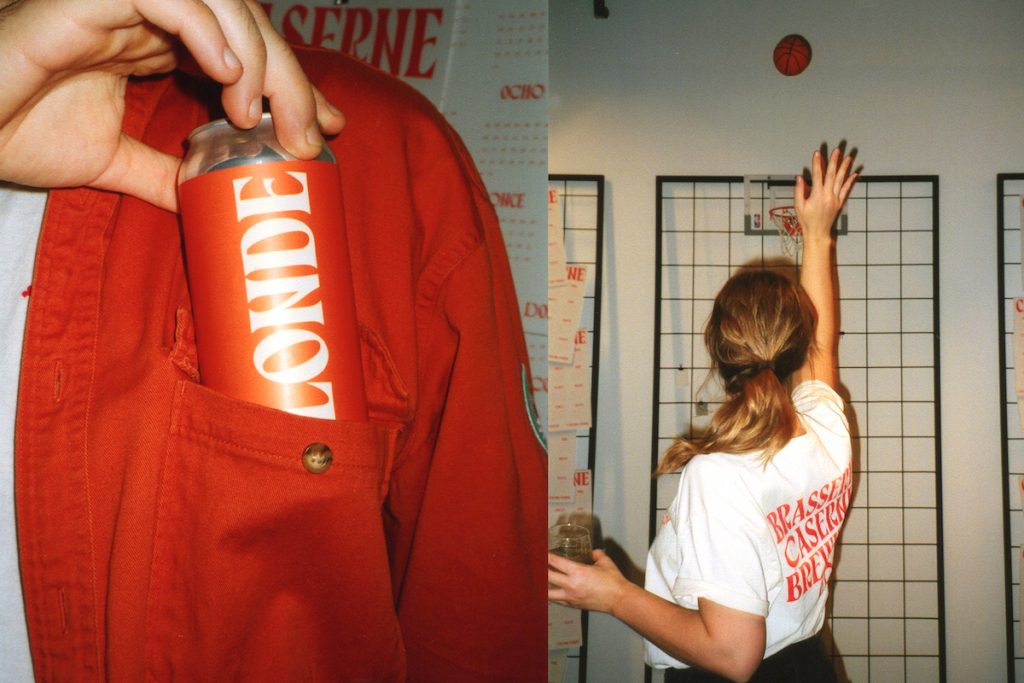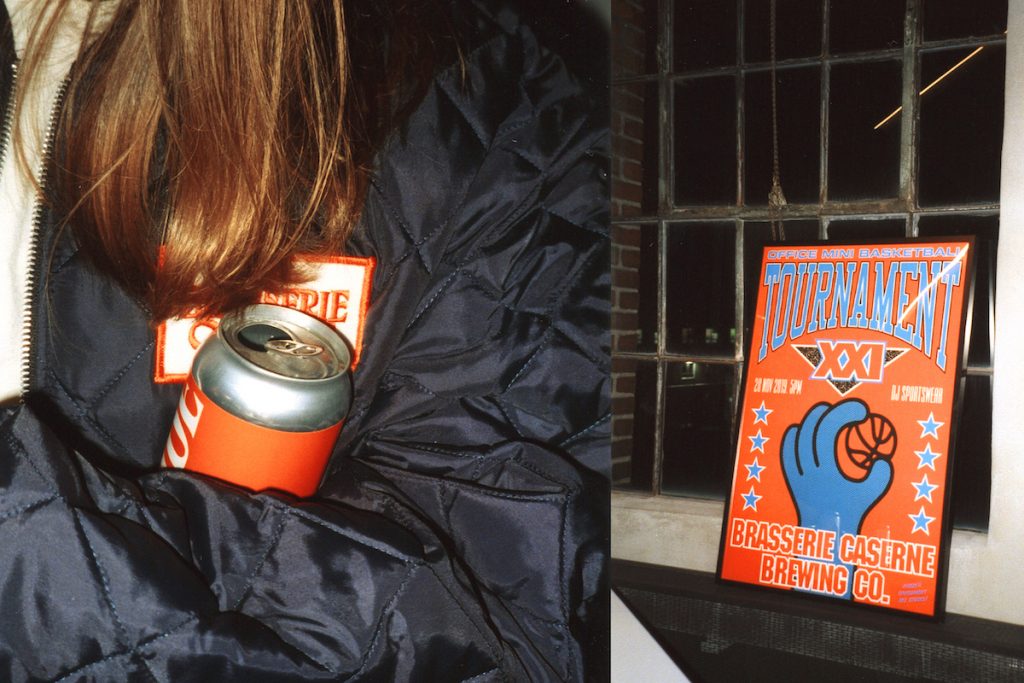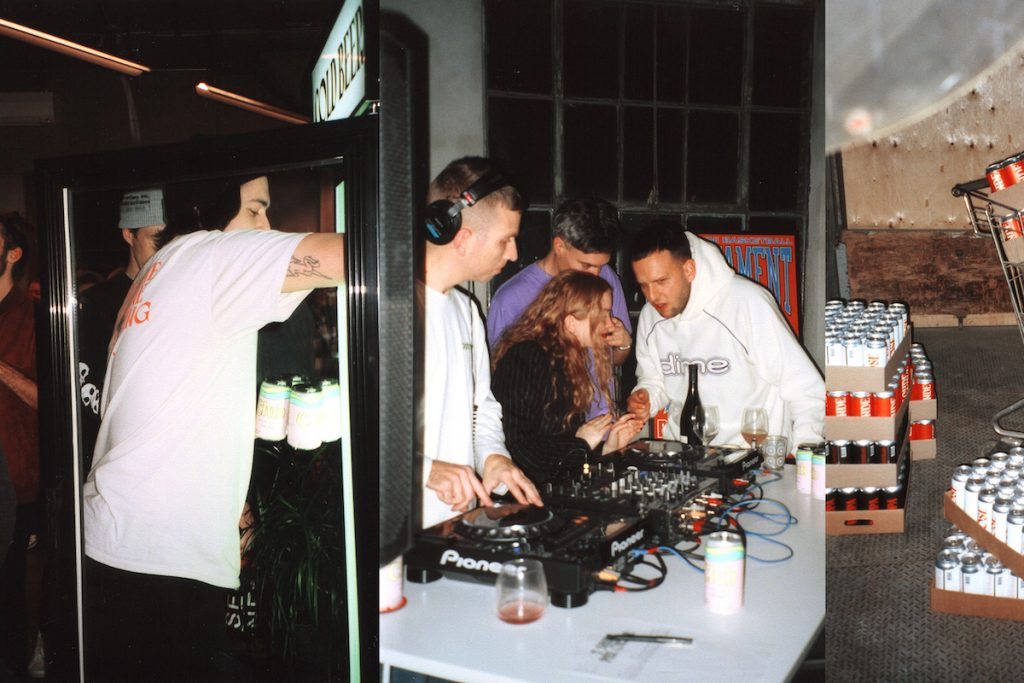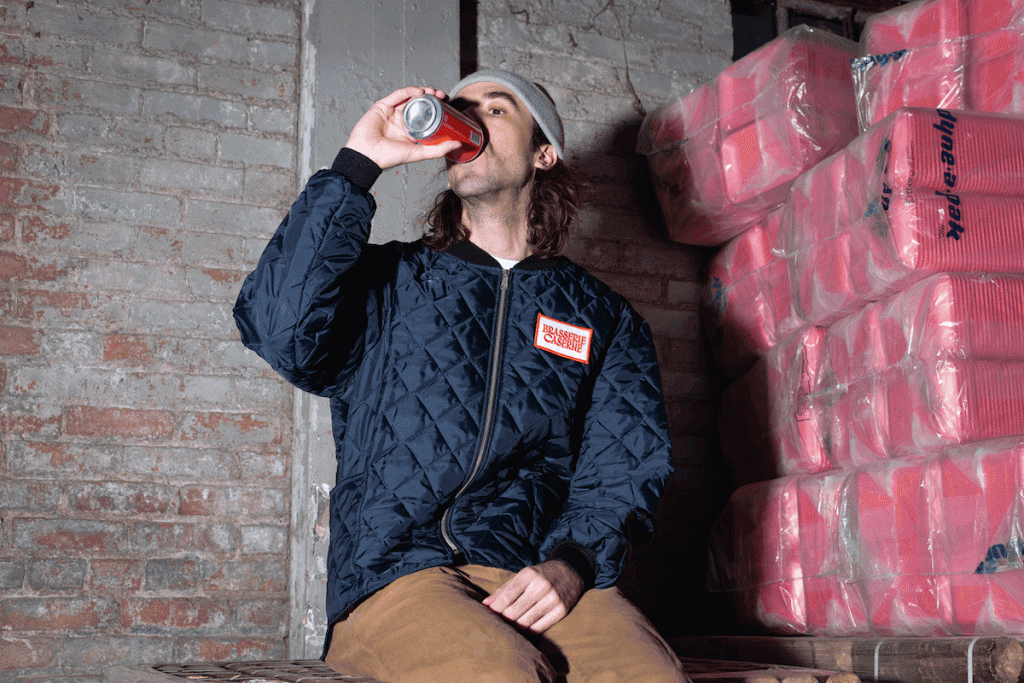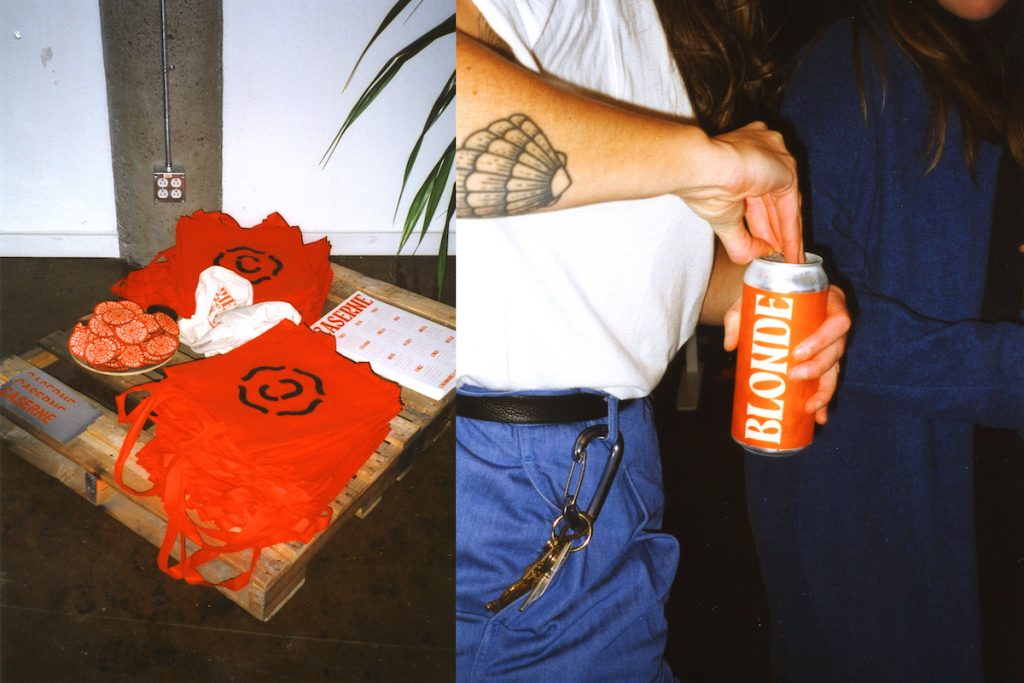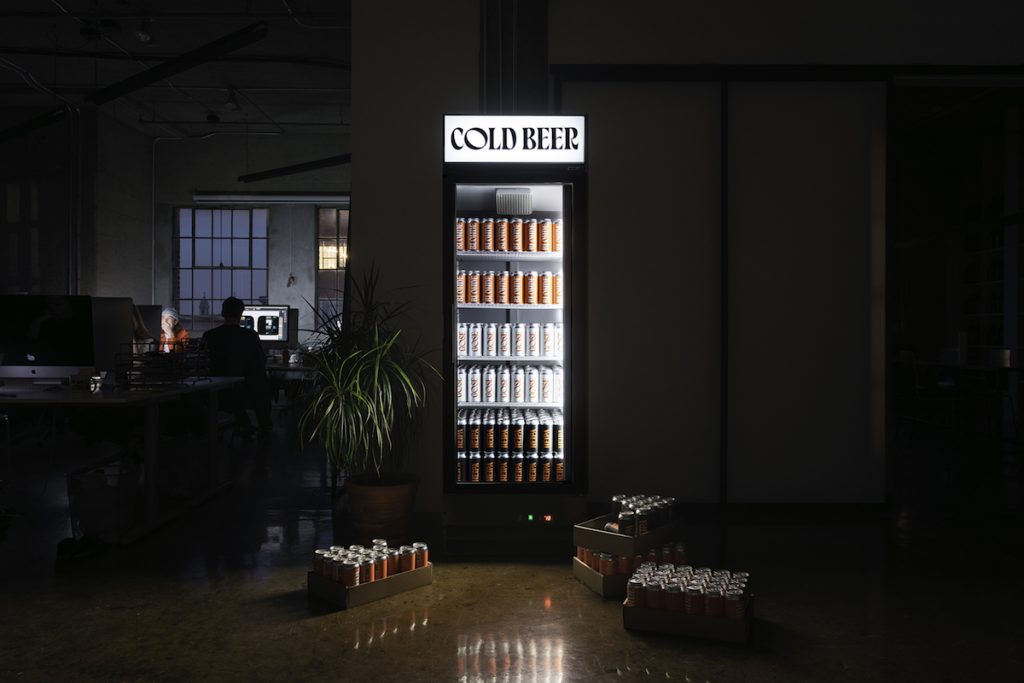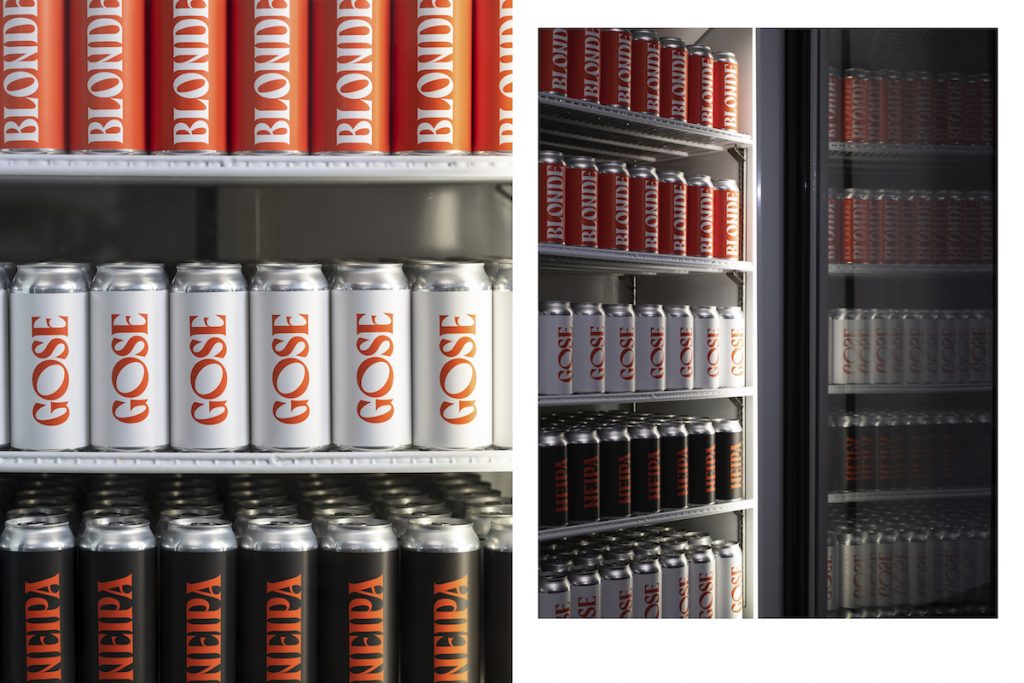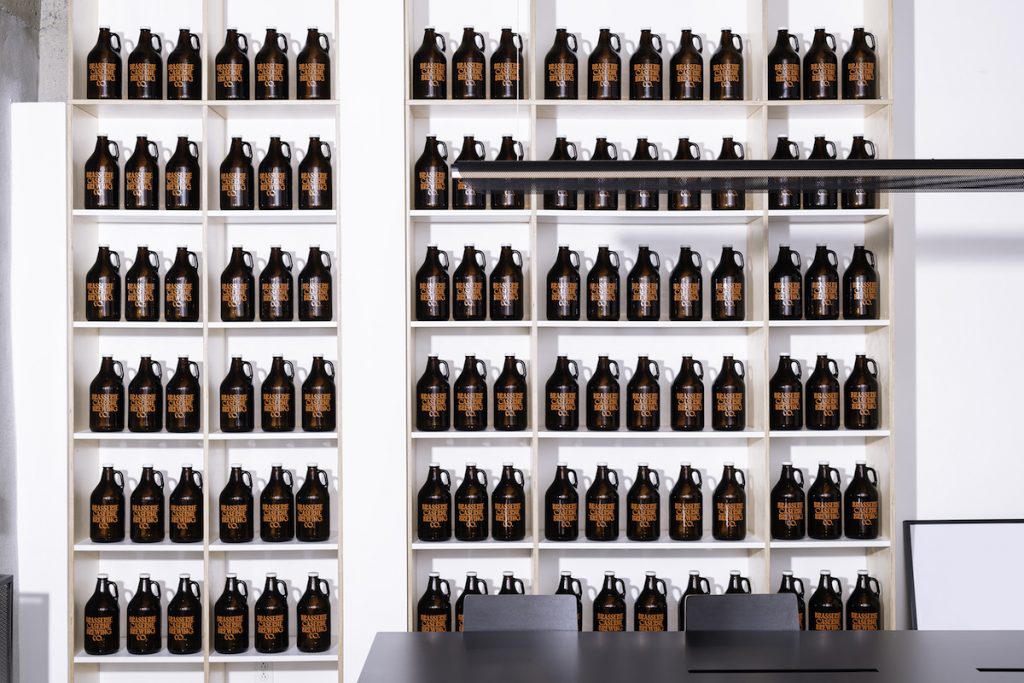
Name: Caserne Brewery typeface
Designers: Montreal-based Caserne created the visual identity that spawned the font, while nearby foundry Coppers and Brasses is behind the typeface itself.
Foundry: Coppers and Brasses
Release Date: November 2019
Backstory: Uniting graphic design, beer and generally having a good time, Canadian studio Caserne created its own Brasserie Caserne Brewing Co. late last year. The typography used in the visual identity was designed by friends of the studio, the foundry Coppers and Brasses, with the idea of developing “a simple graphic asset that would allow us to communicate in a bold and fun way,” says Caserne creative director Léo Breton-Allaire. The type can be seen across all aspects of the branding, including on posters, clothing, bags, coasters, and beer cans.
The studio’s worked with Coppers and Brasses on numerous other projects before, resulting in typefaces that include its own “studio typeface,” Caserne Stencil, as well as the lettering for Chez Tousignant, Club Kombucha, and Colossale production company branding projects. “We also do a lot of minor typographic tweaking on their logos and letterings,” says Étienne Aubert Bonn, a type designer at Coppers and Brasses. “And yes, we used to share a studio for a few years.”
The twist? All is not quite as it seems. This is not your average brewery—in fact, it’s not even a brewery at all. It was all a one-night stunt that Caserne ran in late 2019 to bring together friends and clients, though it did make its own beer supply for the event. It also took the whole fake brewery thing very, very seriously— for the “brewery launch,” the studio created every single branding touchpoint for its limited run of 300 one-party-only beers, and a ludicrous amount of marketing collateral was produced alongside the packaging, including posters, clothing, bags, coasters, and a video that was commissioned from direction studio Parade and producers Content Content. François Ollivier was brought in to photograph the night and the products, making the whole shebang seem entirely genuine. Which it was, in a way. But sadly, this brewery is not for keeps.
Why’s it called Caserne Brewery typeface? Well, it isn’t strictly called anything, really. As the typeface was created as a bespoke brand font for the fictional brewery project alone, it isn’t available for commercial use and isn’t for sale, though that might change in future as it’s proved to be so popular. Otherwise, the name speaks for itself… it’s a typeface for the Caserne Brewery.
What are its defining characteristics? Bonn says the brand font is distinguished by its “steep angle in the application of contrast (following a broad nib contrast model); the pointy, aggressive serif and terminals; and of course the multi-width of the round characters.” Breton-Allaire adds that the typeface has “diabolic terminals” and “drunky alternates” as shown in its C, D, G, O, and Q letterforms.
What should I use it for? Since it isn’t an officially released typeface, sadly we can’t really use it for anything. But if we could, it would make for a standout brand font, with loads of character and a subtle style seen in its gentle serif nuances and sense of dynamism. These qualities make it great as a headline or title display font—so it would work brilliantly for bolder applications like posters—but it’s not so outlandish that it wouldn’t also work for body copy. However, Bonn concedes that “the main challenge with a typeface of this style will be to complete the lowercase and make it work well with the rest of the letters. Many of the defining characteristics of it don’t play too well in lowercase.”
What other fonts should I pair it with? Since the font has so much character as a standalone element, it’s best to use it alongside more neutral, simple fonts—maybe something classic along the lines of Helvetica, or for something more modern like FS Split by Fontsmith, Simula by Justin Sloane, or Empirica from Frere-Jones Type. “Since it’s a pretty loud typeface, I think that something a bit more subtle and neutral would work best,” says Bonn.